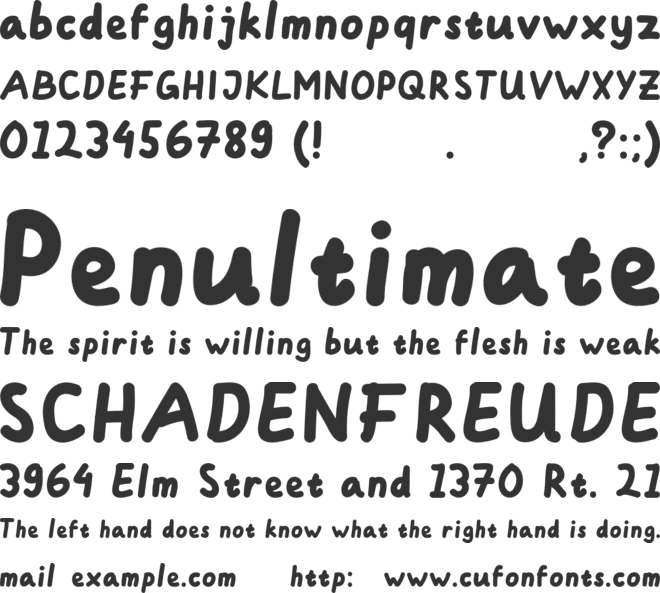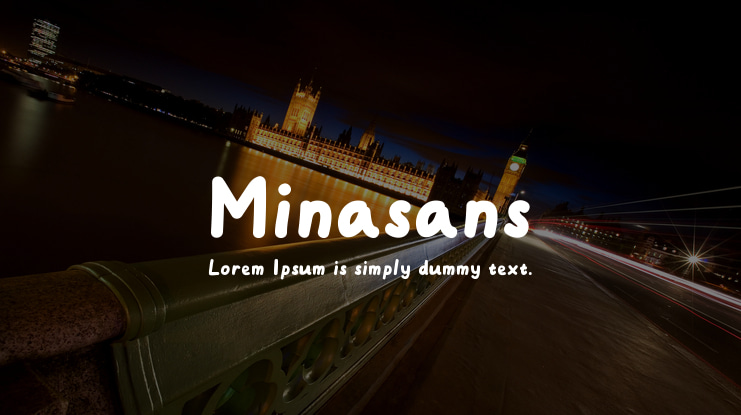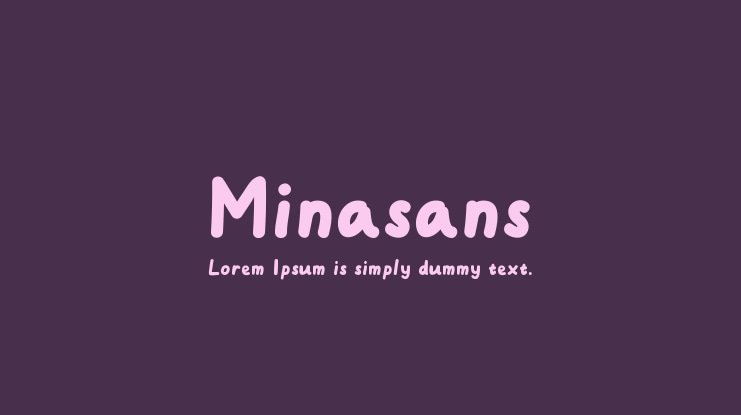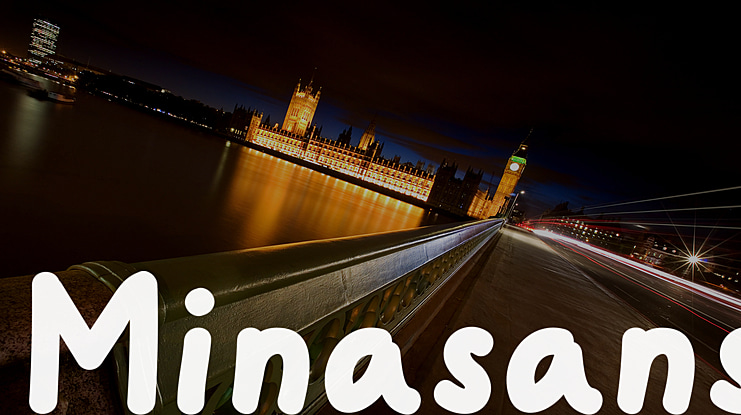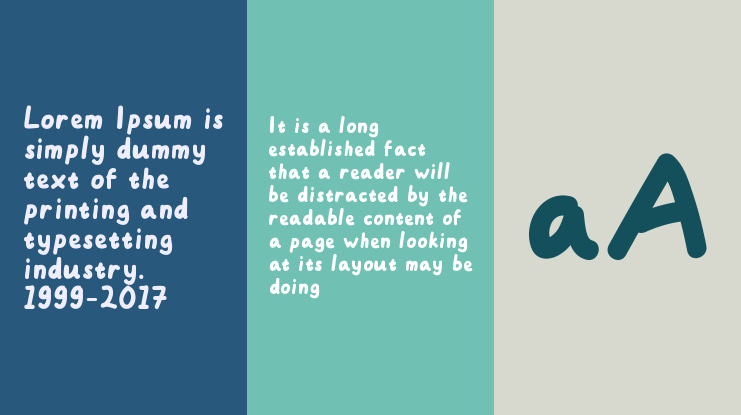
Minasans Font
My very first font, i made it with Adobe Illustrator and FontForge. The characteristics of this font are friendly and flexible. Feel free to use it, personally or commercially. Thank you!